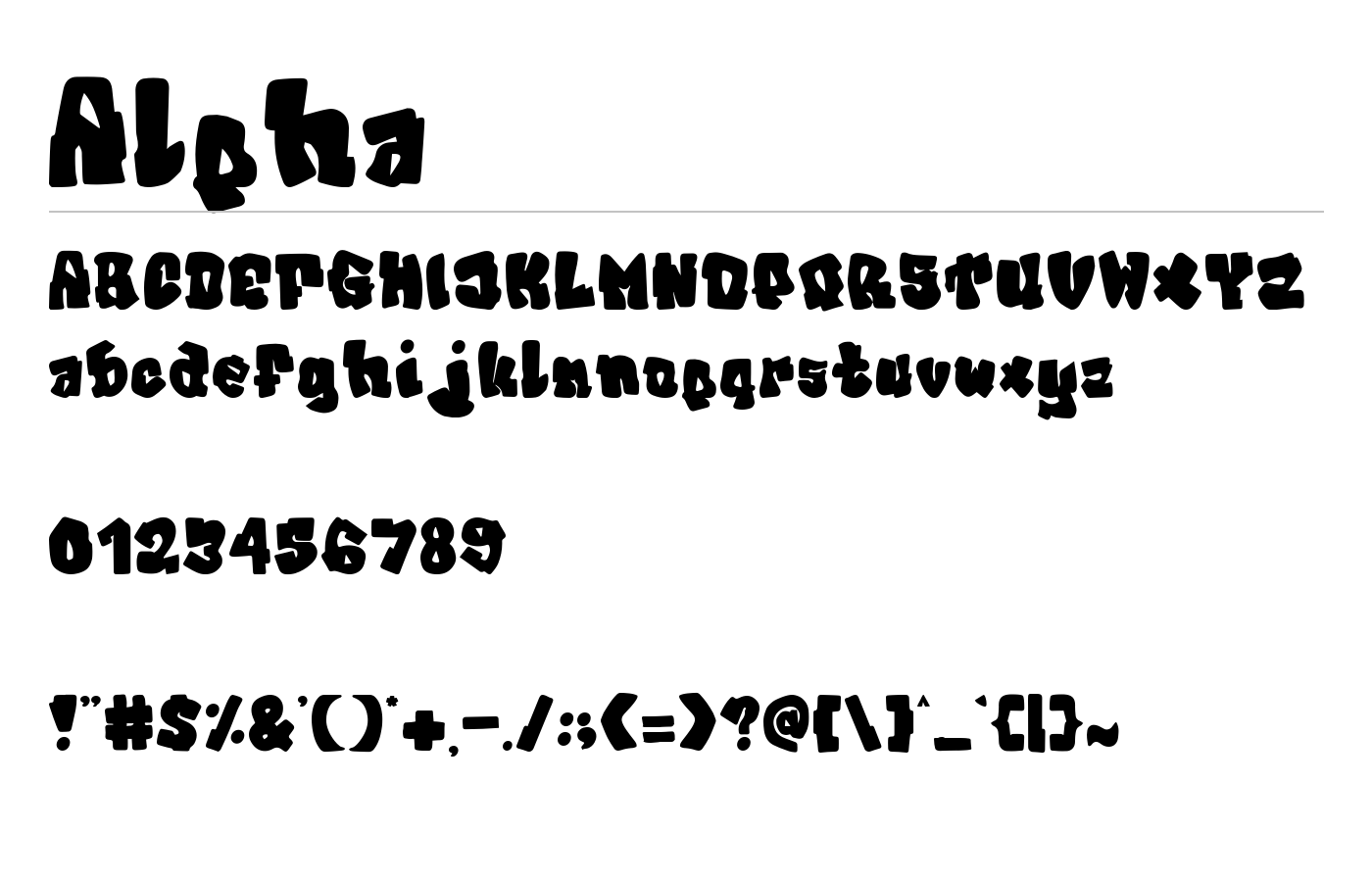
Alpha Font is a bold, playful sans serif typeface with uneven, chunky letterforms that give it a hand-crafted, quirky personality. Its irregular shapes and informal style make it perfect for creative projects, children’s materials, and eye-catching headlines that need a fun, energetic vibe. This font stands out in branding, posters, and any design aiming for a distinctive, lively feel.
Alpha Font
About Alpha Font